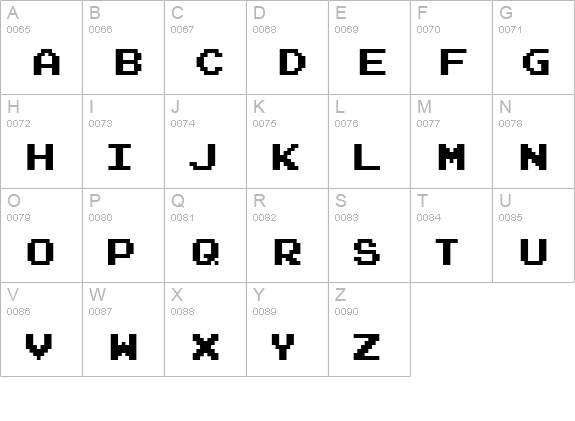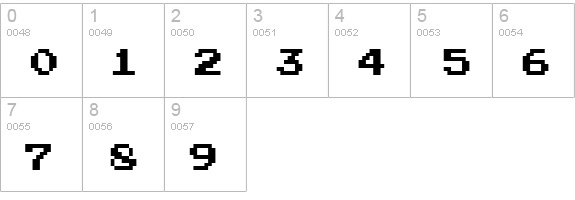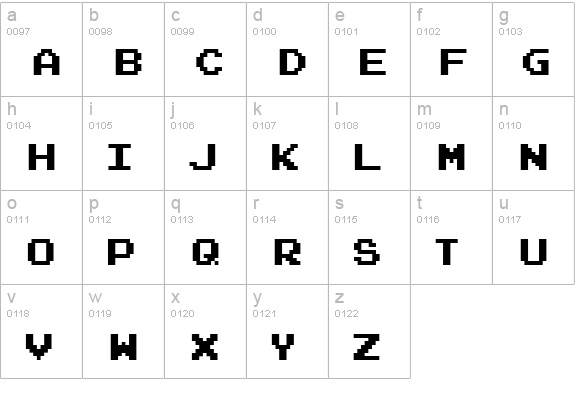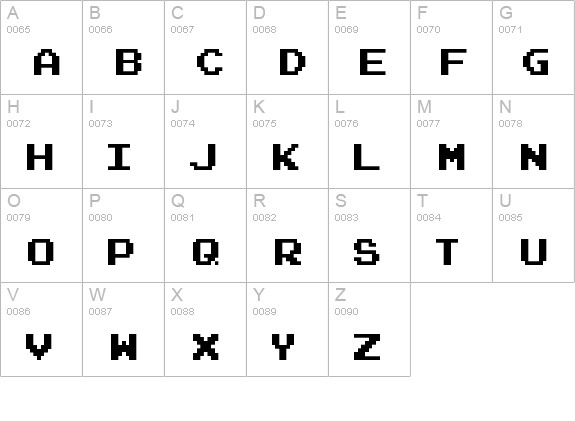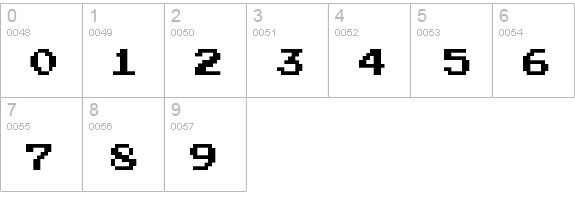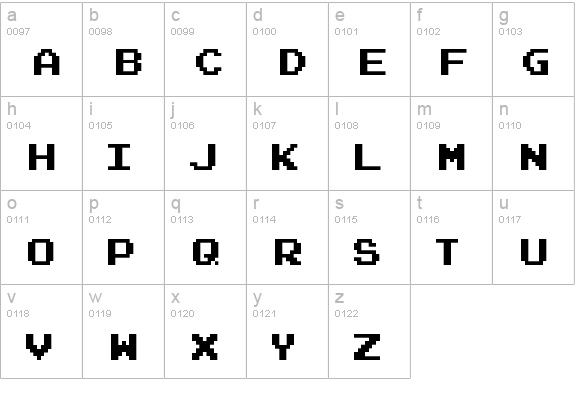
Joystix Font Details
Introducing Joystix font - a playful and energetic typeface designed to bring a fun and nostalgic touch to your projects. With its bold and dynamic letterforms, Joystix is perfect for creating eye-catching designs that convey a sense of enthusiasm and creativity. Whether you're working on a gaming-related project, a children's book, or simply want to add a touch of whimsy to your designs, Joystix has got you covered. The best part? Joystix font is available for free download at FontsMarket.com, making it easily accessible for all creatives looking to add a unique and lively font to their collection. So go ahead, unleash your creativity and bring a sense of joy to your designs with Joystix font!